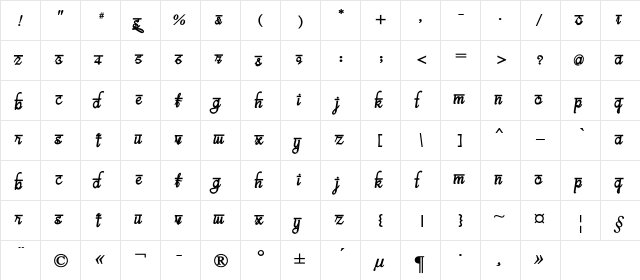
bits indian calligra Regular Font Preview
bits indian calligra Regular
bits indian calligra Regular Font Details
| Foundry | bitling |
Design Context for bits indian calligra Typeface
bits indian calligra takes a measured approach to typography — its balanced proportions and neutral character make it a reliable workhorse for both digital and print work.